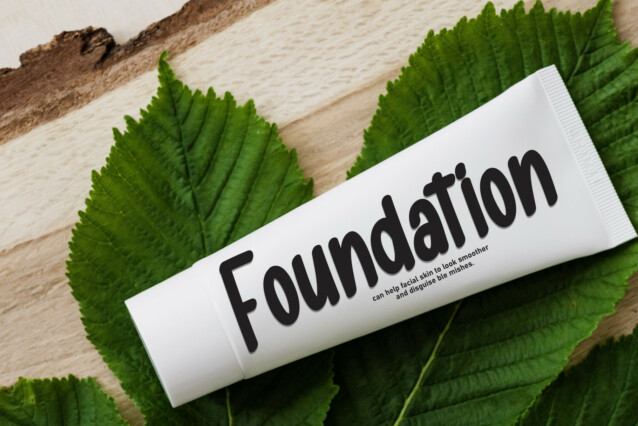
Merry Christmas Brush Font
Merry Christmas Brush Font is a sweet and friendly handwritten display font. Cute and fun, this font is ideal for writing wedding invitations, cards, or any other design that might need a fun touch!